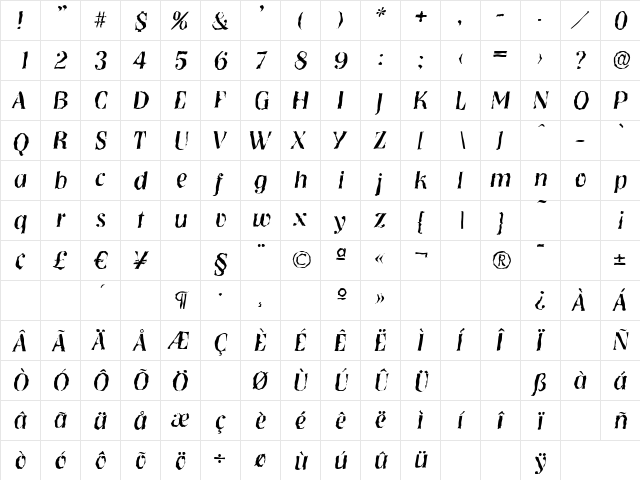
NashvilleRandom Italic
Design Context for NashvilleRandom Typeface
NashvilleRandom is a composed and adaptable typeface that performs quietly and consistently across a wide range of design contexts. The dynamic lean of this cut emphasises speed and emphasis in any layout.
Pro Tip: Try NashvilleRandom for annotation and caption copy alongside an upright companion — the contrast in angle creates a dynamic but ordered typographic system.